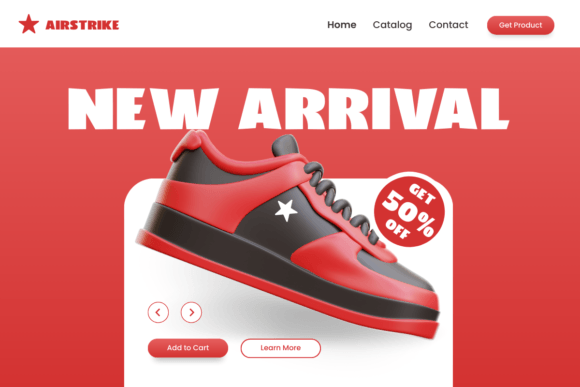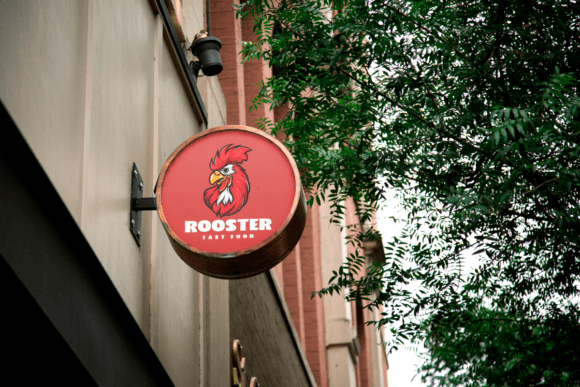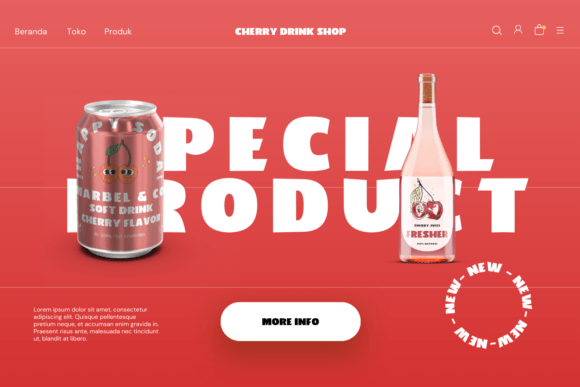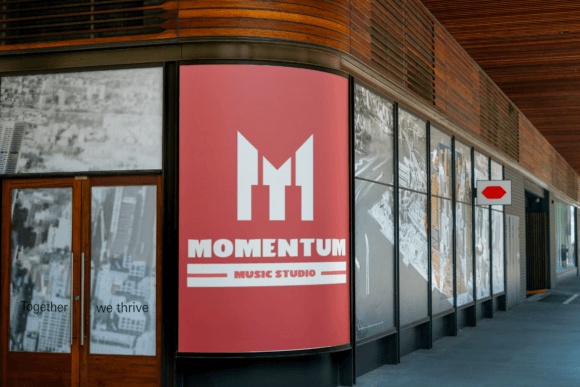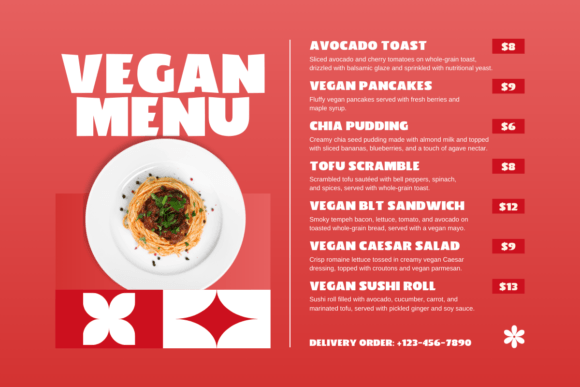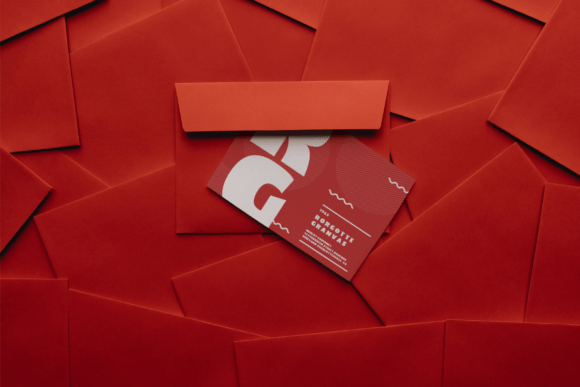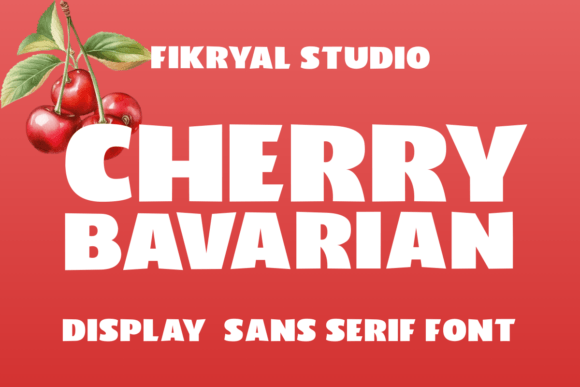
Introducing Cherry Bavarian Font: The Ultimate Sans Serif Display Font for Bold Designs
In the world of typography, fonts play a crucial role in conveying the message and aesthetic of a design. For designers and crafters looking for a bold and strong impression, Cherry Bavarian Font is an excellent choice. This sans serif display font is characterized by its bold and all-caps style, making it ideal for headlines, posters, logos, and branding.
Key Features of Cherry Bavarian Font
- Bold and All-Caps Design: Cherry Bavarian Font is designed to make a statement with its bold and all-caps style. This feature makes it perfect for creating attention-grabbing headlines and titles.
- Modern and Elegant: Despite its bold nature, Cherry Bavarian Font delivers a combination of modernity and elegance. This versatility makes it suitable for a variety of design needs, from logos and branding to posters and packaging.
- Clear and Sturdy: The font’s clear and sturdy design ensures that it remains professional and legible, even at larger sizes. This makes it an excellent choice for designs that require a strong visual impact.
- Flexible and Adaptable: Cherry Bavarian Font can be used across various design projects, including digital and print materials. Its flexibility makes it an excellent addition to any designer’s font library.
Uses of Cherry Bavarian Font
Cherry Bavarian Font is an incredibly versatile font that can be used in a wide range of design projects. Here are some of the most popular uses:
- Headlines and Titles: The font’s bold and all-caps design makes it perfect for creating attention-grabbing headlines and titles.
- Logos and Branding: Cherry Bavarian Font’s modern and elegant design makes it an excellent choice for logos and branding projects.
- Posters and Flyers: The font’s clear and sturdy design ensures that it remains legible and professional, even at larger sizes, making it perfect for posters and flyers.
- Packaging and Advertising: Cherry Bavarian Font’s bold and strong impression makes it an excellent choice for packaging and advertising projects.
Benefits of Using Cherry Bavarian Font
Using Cherry Bavarian Font in your design projects offers several benefits, including:
- Instant Recognition: The font’s bold and all-caps design ensures that your message gets noticed and remembered.
- Professionalism: Cherry Bavarian Font’s clear and sturdy design conveys a sense of professionalism and expertise.
- Versatility: The font’s flexibility makes it suitable for a wide range of design projects and applications.
- Time-Saving: With Cherry Bavarian Font, you can create stunning designs quickly and efficiently, saving you time and effort.
Tips for Using Cherry Bavarian Font Effectively
To get the most out of Cherry Bavarian Font, here are some tips to keep in mind:
- Use it Sparingly: While Cherry Bavarian Font is perfect for headlines and titles, use it sparingly to avoid overwhelming your design.
- Pair it with Other Fonts: Experiment with pairing Cherry Bavarian Font with other fonts to create a unique and visually appealing design.
- Adjust Font Size and Color: Adjust the font size and color to create visual hierarchy and emphasize key messages.
- Experiment with Effects: Experiment with effects like bold, italic, and underline to add emphasis and create visual interest.
| Author | Fikryal Studio |
Cherry Bavarian Font is an exceptional sans serif display font that offers a bold and strong impression. Its modern and elegant design makes it versatile and adaptable for a variety of design needs. With its clear, sturdy, and professional design, Cherry Bavarian Font is perfect for designers and crafters looking to enhance the visual appeal of their projects. Whether you’re creating headlines, logos, posters, or branding materials, Cherry Bavarian Font is an excellent choice.